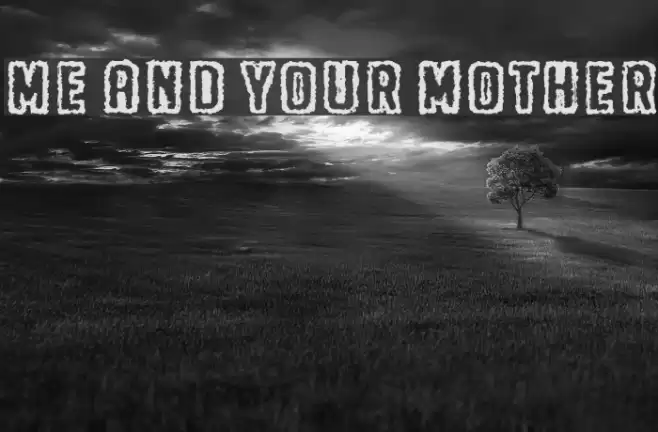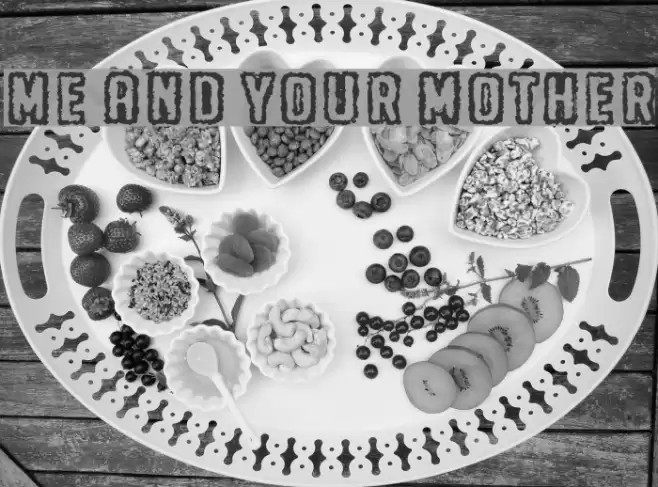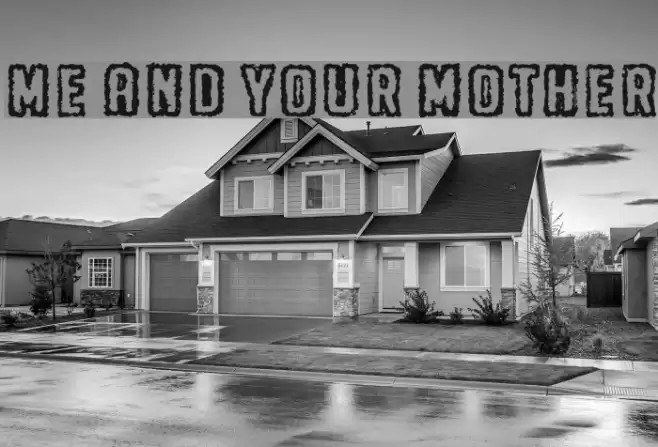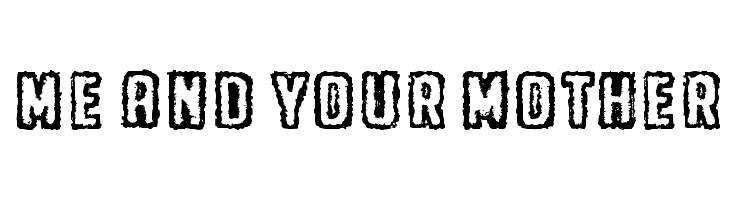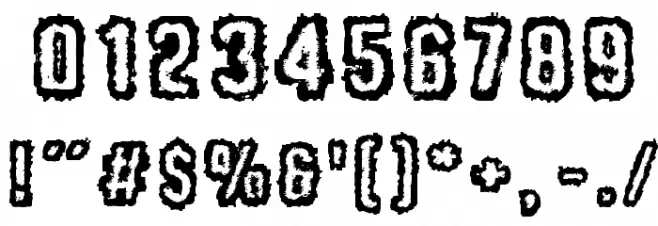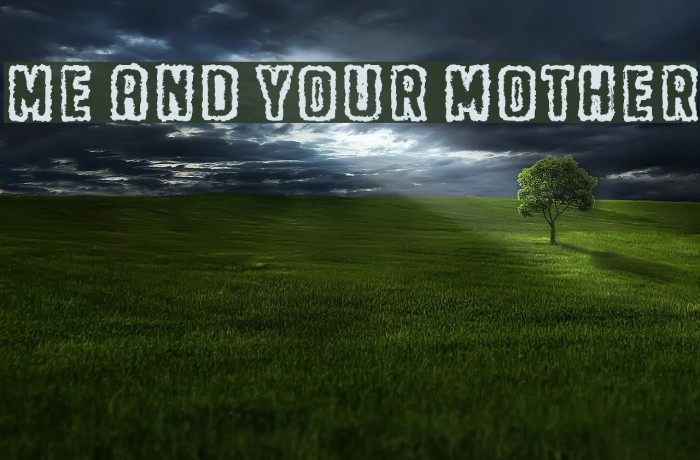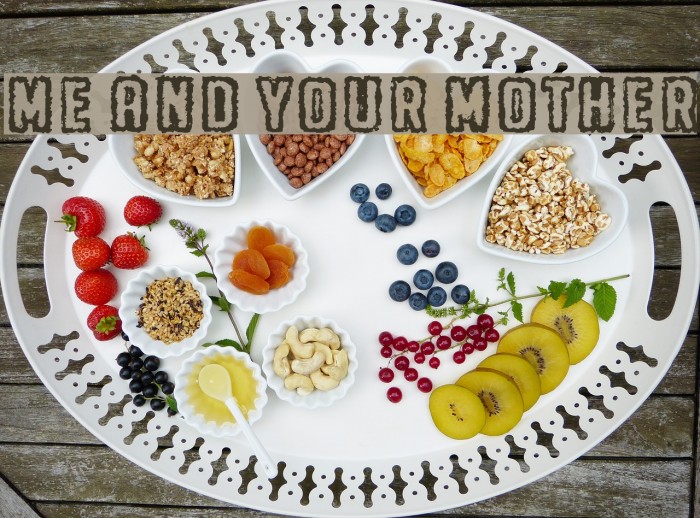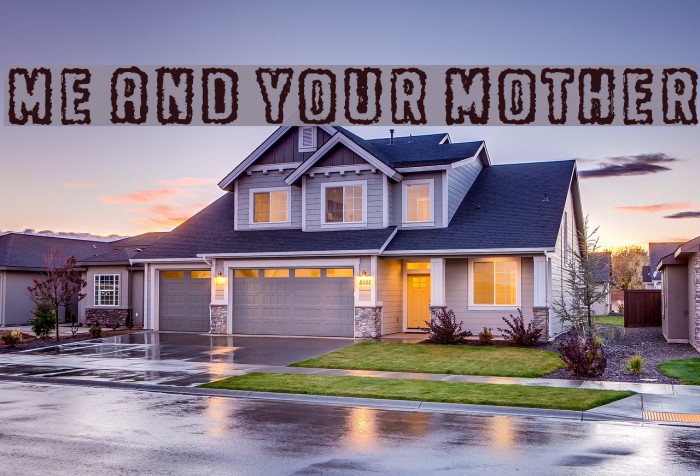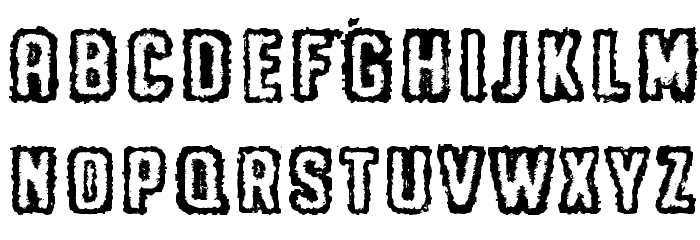
Me and your mother Font
Me and your mother Description
This font features a bold, textured style with a distressed, rugged appearance. Each character is outlined with a thick, uneven border that gives it a hand-drawn, organic feel. The letters are uppercase and maintain a consistent height, contributing to a uniform look despite the irregular edges. The numbers and special characters follow the same design, ensuring cohesion across all elements. This font's unique style makes it stand out, perfect for projects that require a bold statement or a vintage, grunge aesthetic.
A bold, textured font with a distressed, hand-drawn appearance from Uncategorized fonts.
- Proposed Projects: Ideal for posters, album covers, branding materials, and any design needing a bold, vintage touch.
- Overall Style: Vintage, Grunge